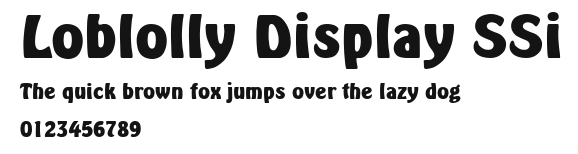
Loblolly Display SSi.ttf is a modern, elegant sans-serif font designed for ultimate readability and visual harmony. Perfect for branding, headlines, web design, and print materials.